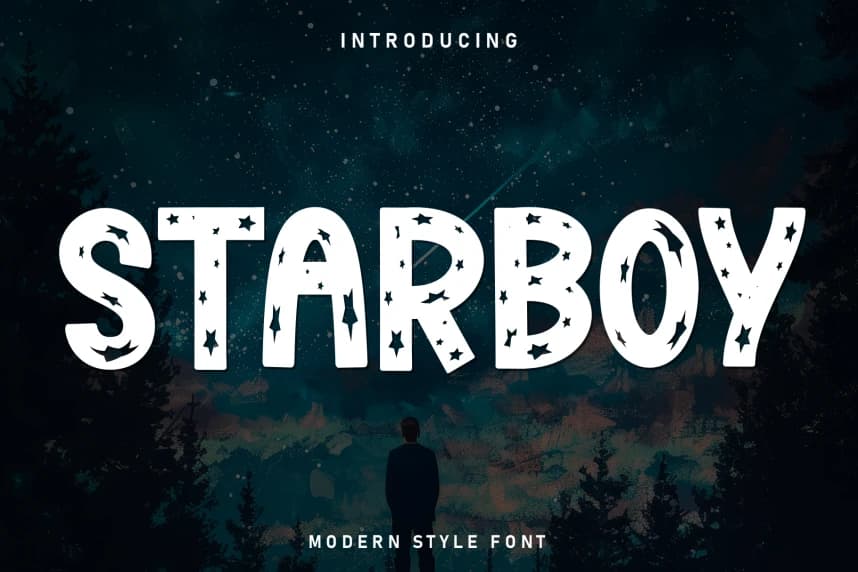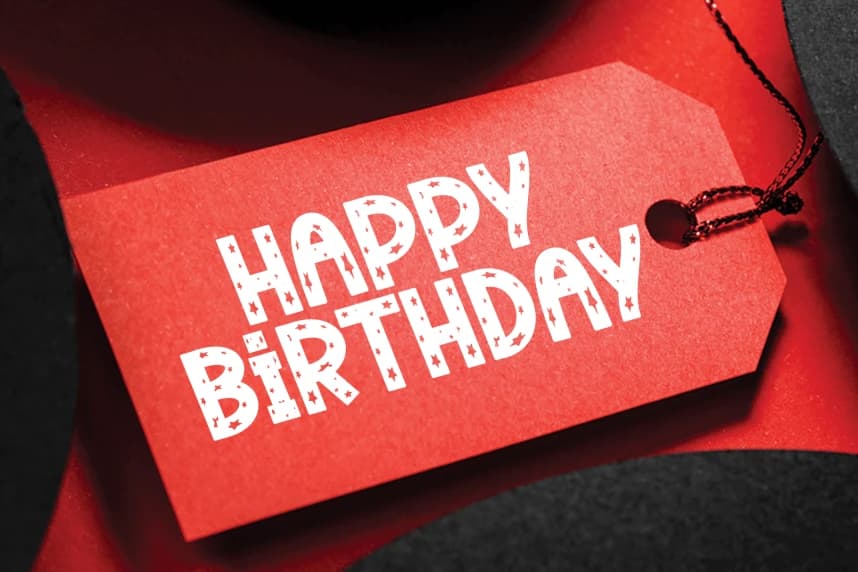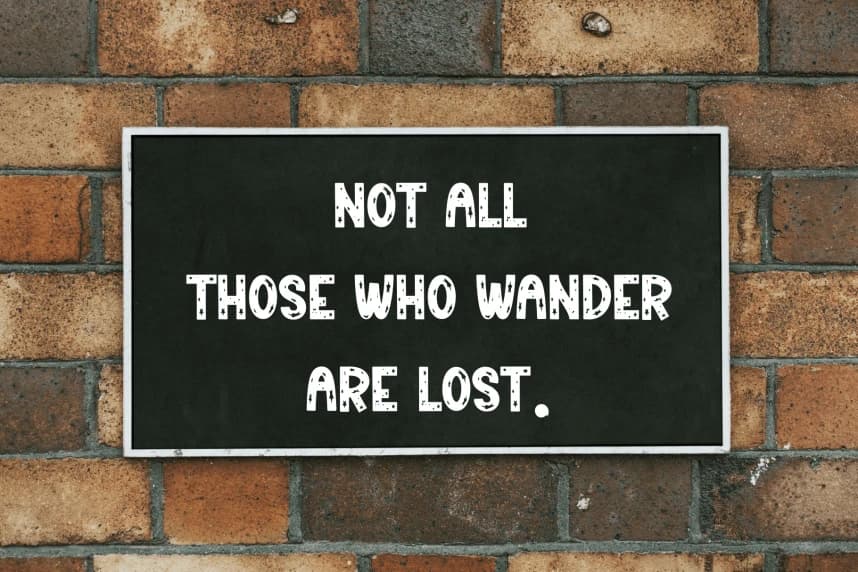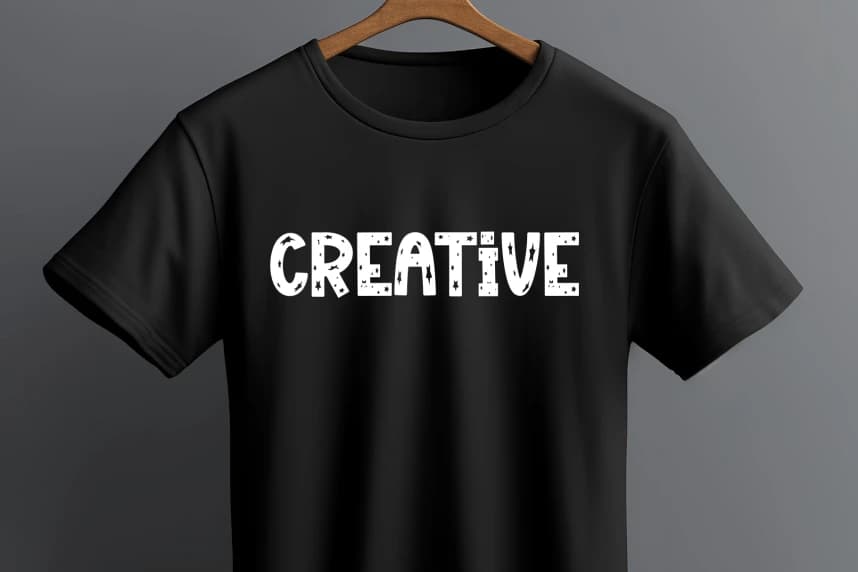
Starboy display Font
Starboy display Font is a sweet and friendly handwritten display font. Cute and fun, this font is ideal for writing wedding invitations, cards, or any